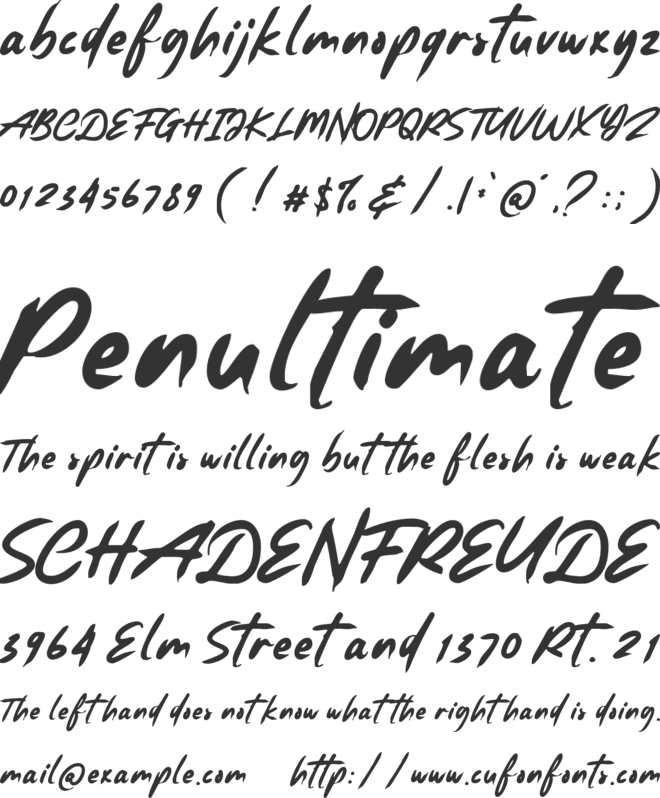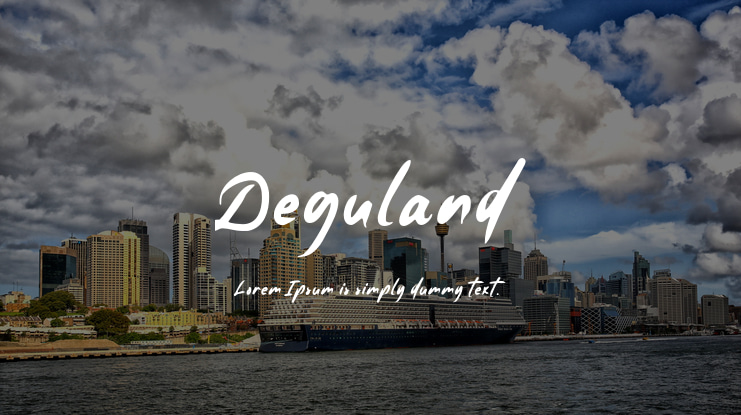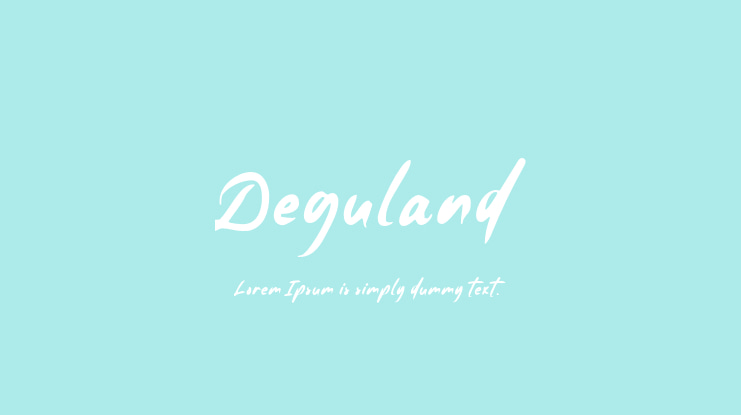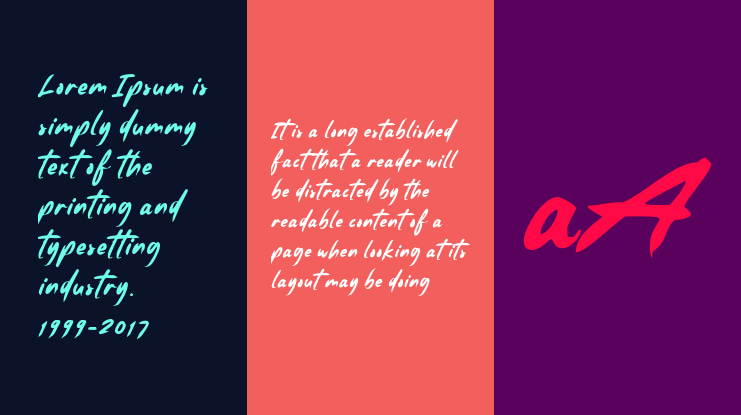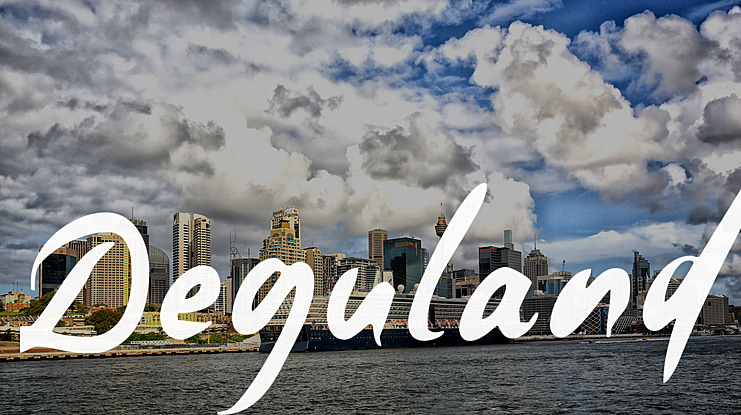
Deguland Font
Deguland is Natural font based on marker handwriting. This enchanting handwritten font will turn any creative idea into a true standout.
Perfect for quotes, design for kids, notes, tees, and any suitable product design. Included standar character, numeral, punctuation and multilingual support.